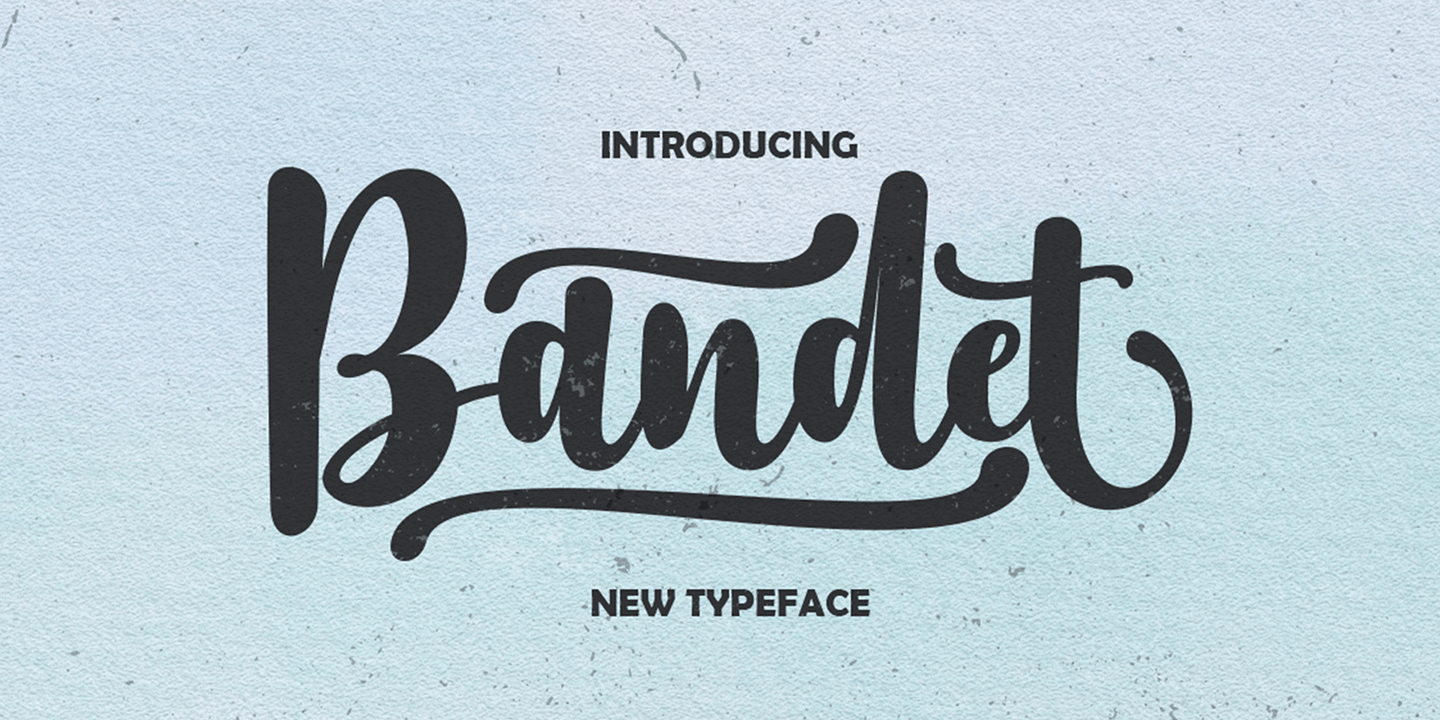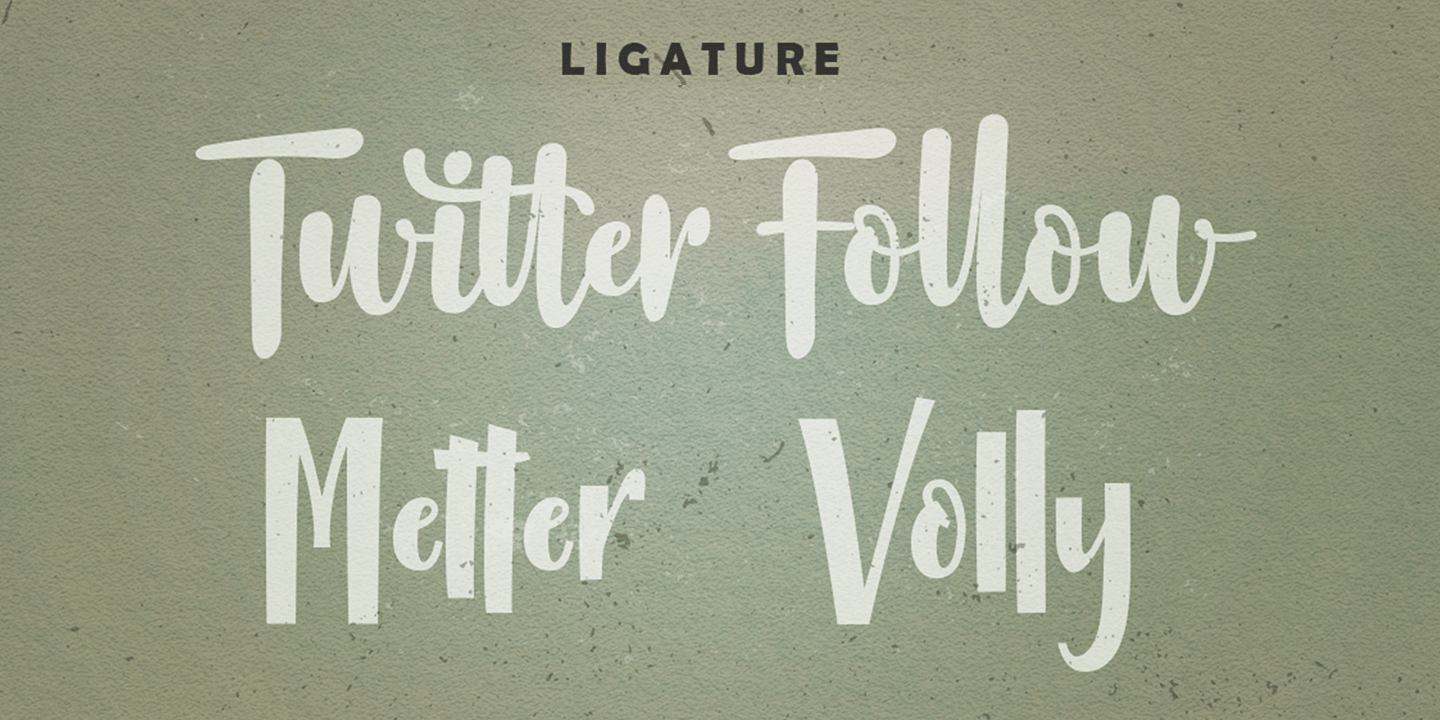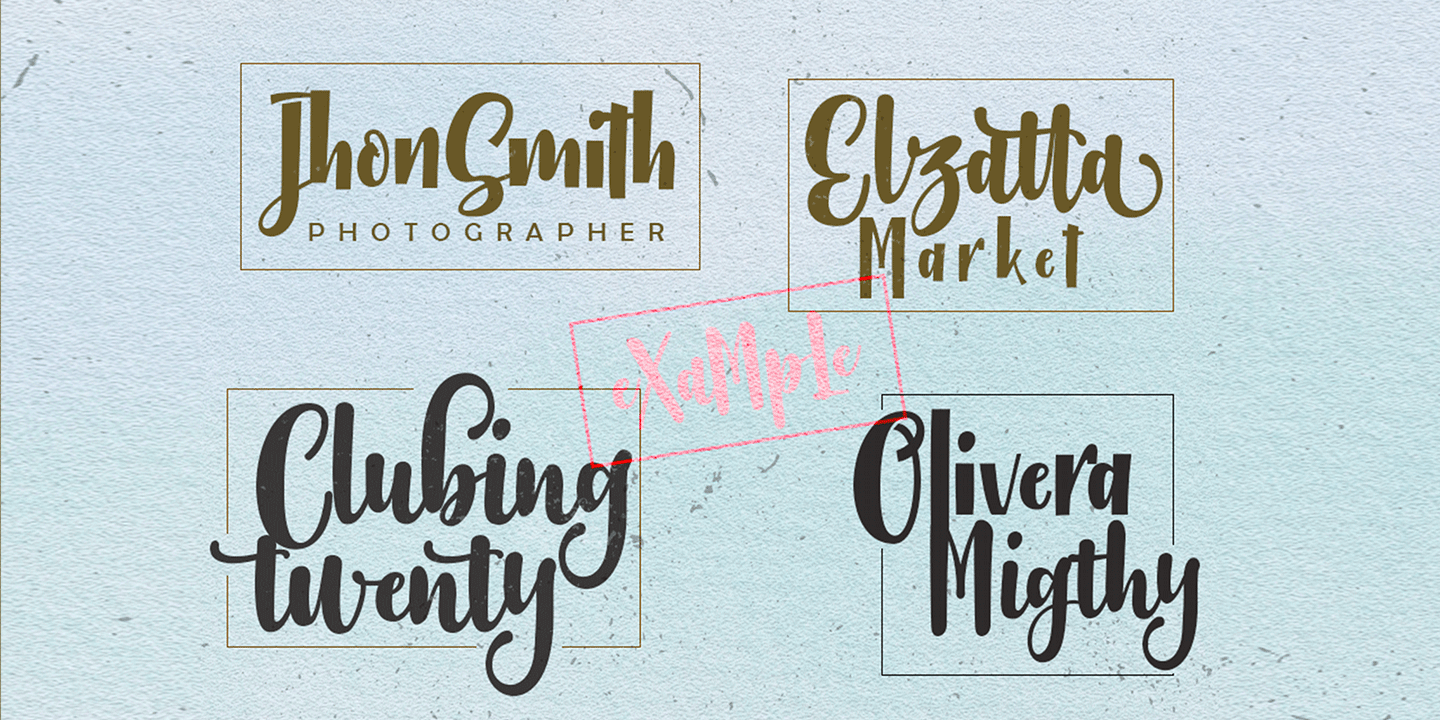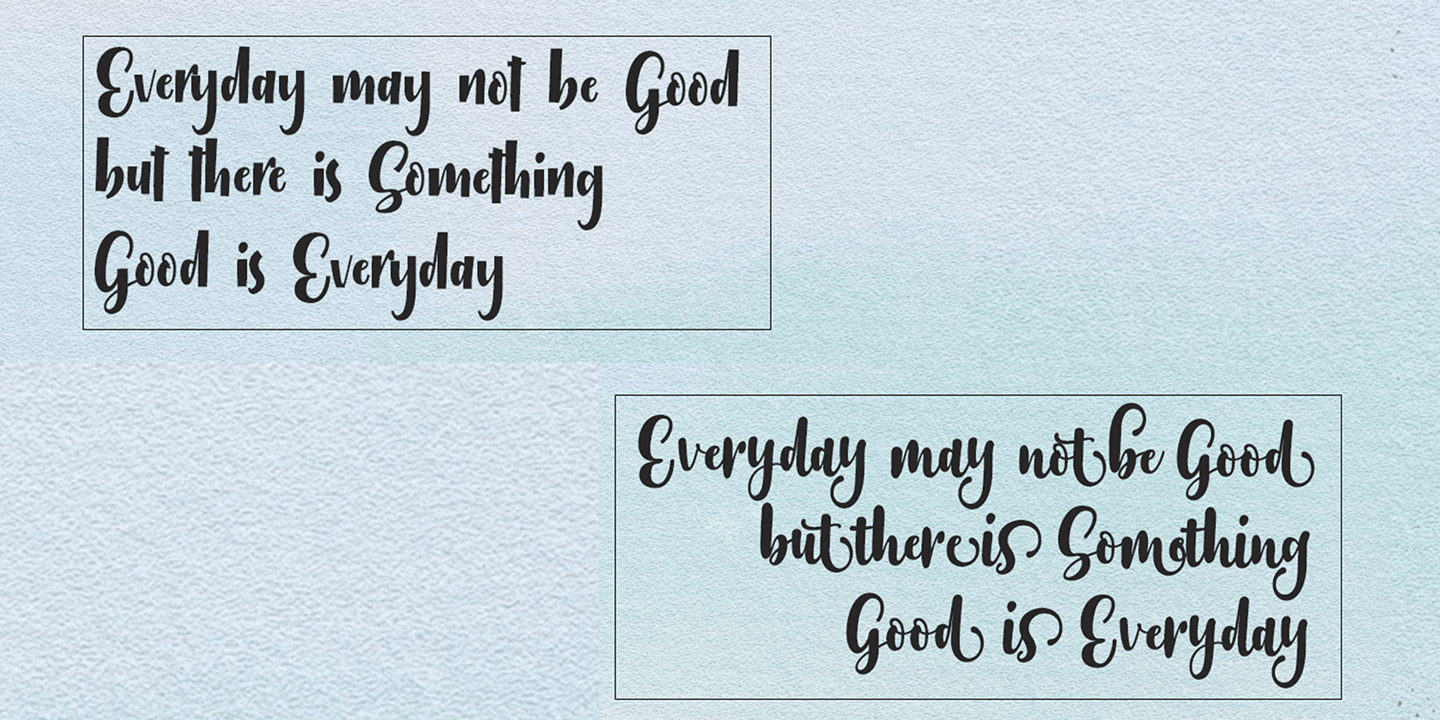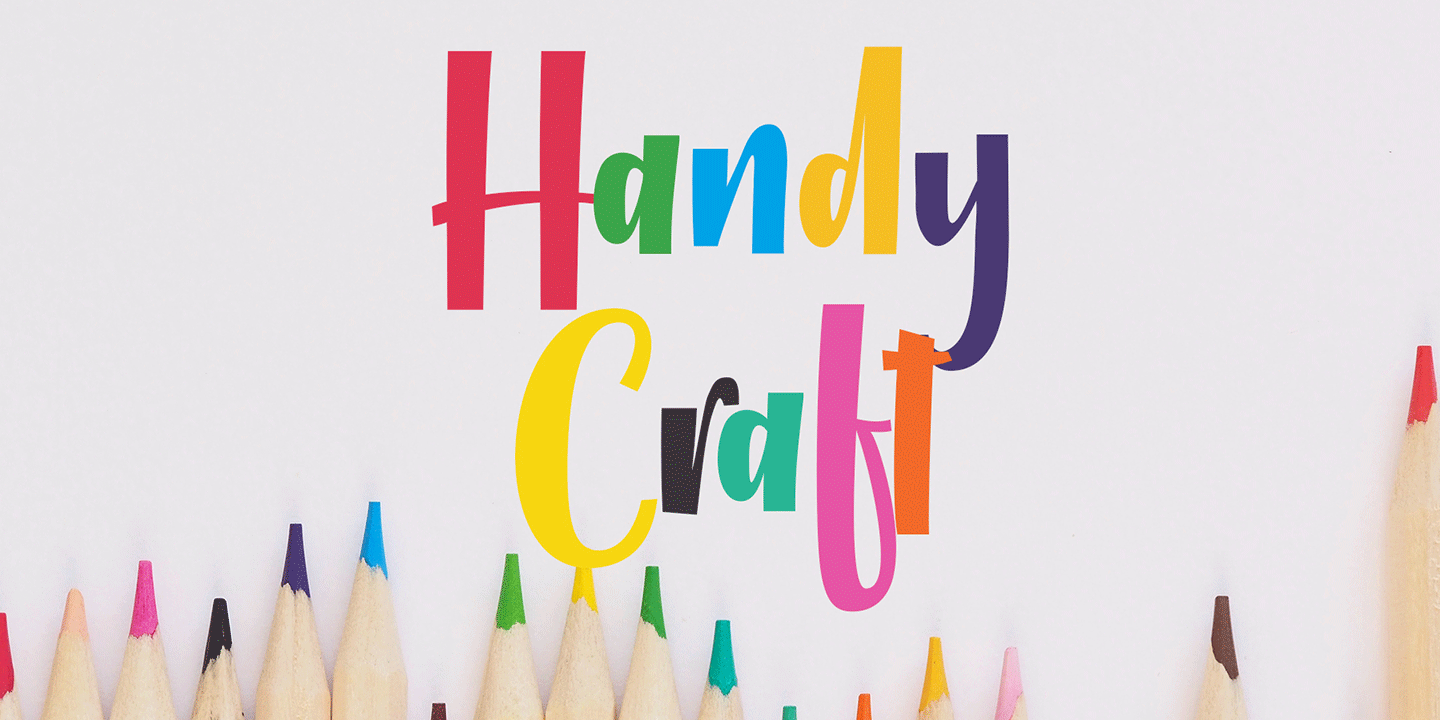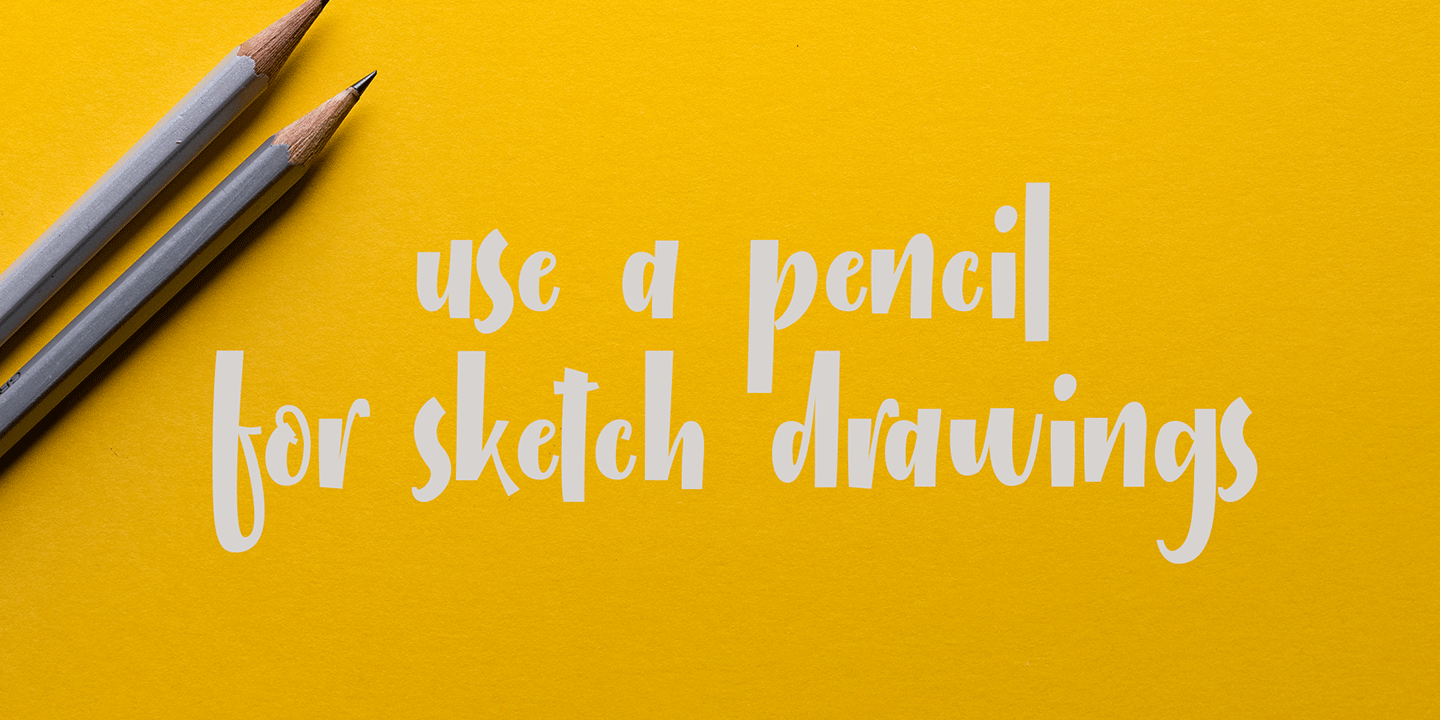
Bandet
Bandet is a font bold, so, brush script that is beautiful and unique, it is a model of modern calligraphy typefaces, in combination with a calligraphy writing style.
The Features of this fonts is;
- Contextual Alternates
- Standart ligatures
- Stylistic Alternates
- Stylistic sets